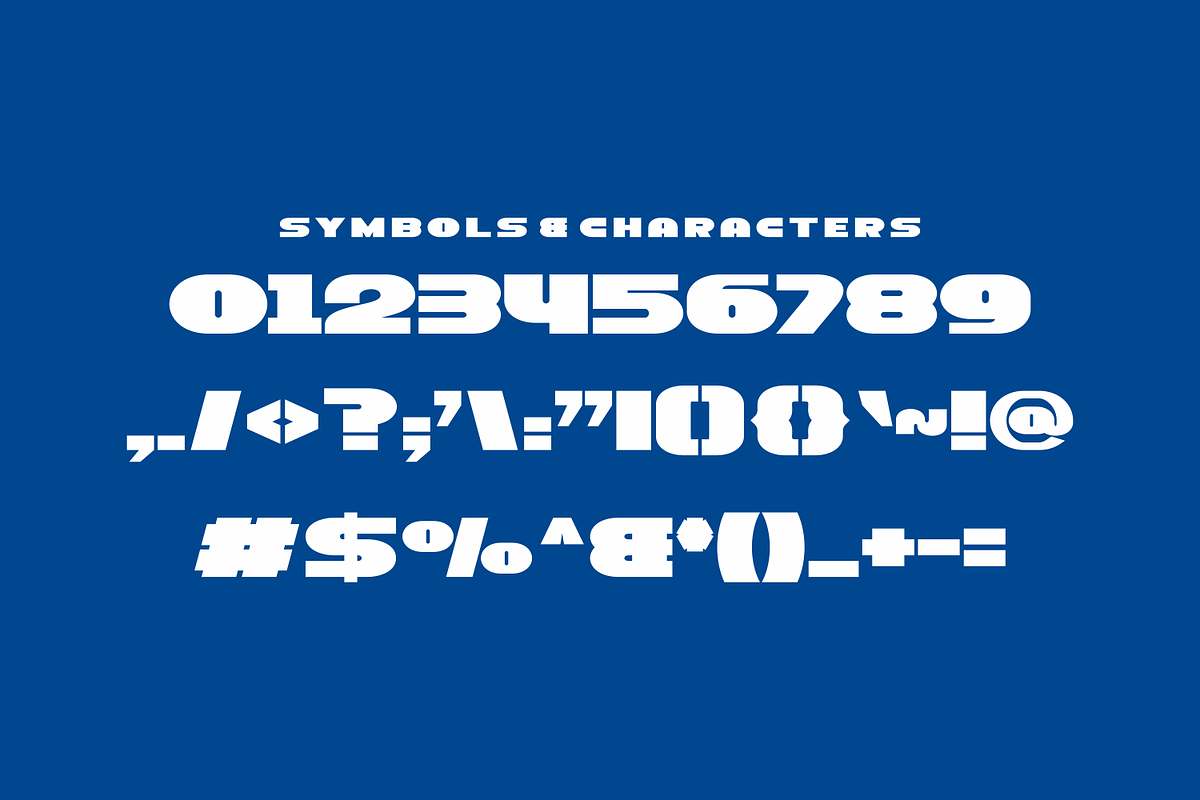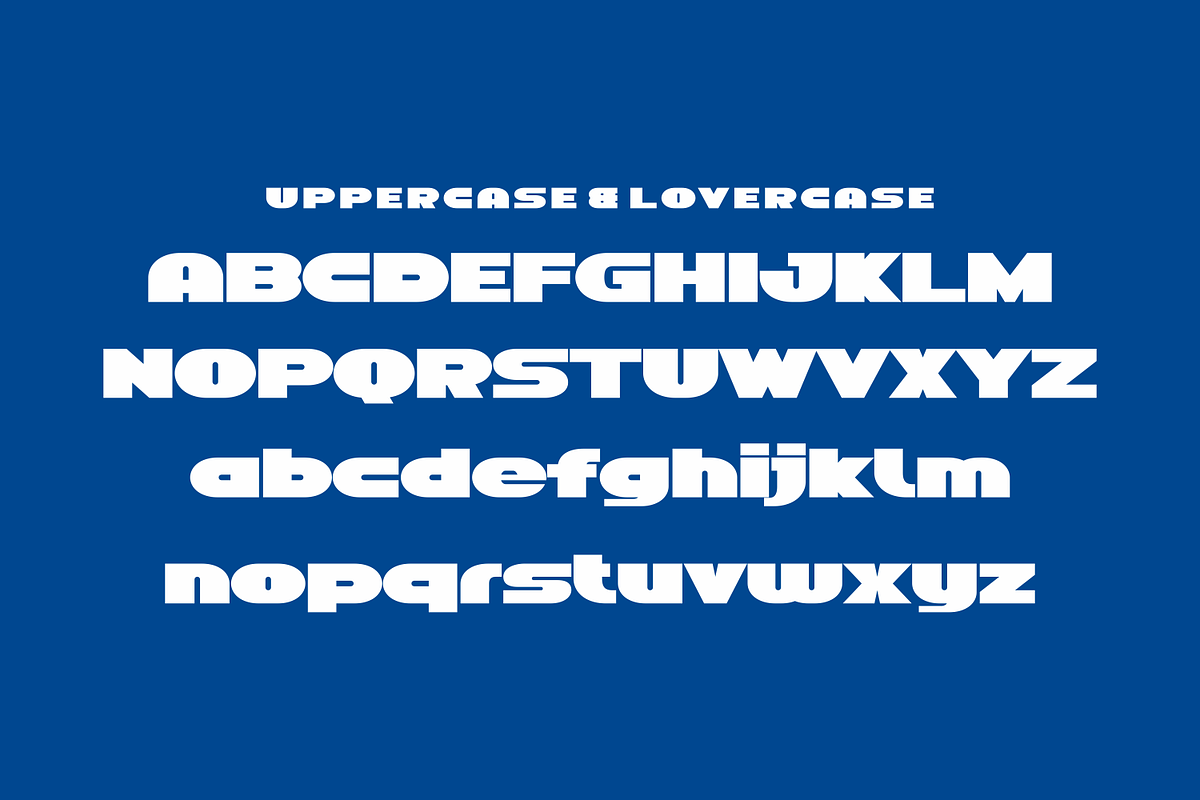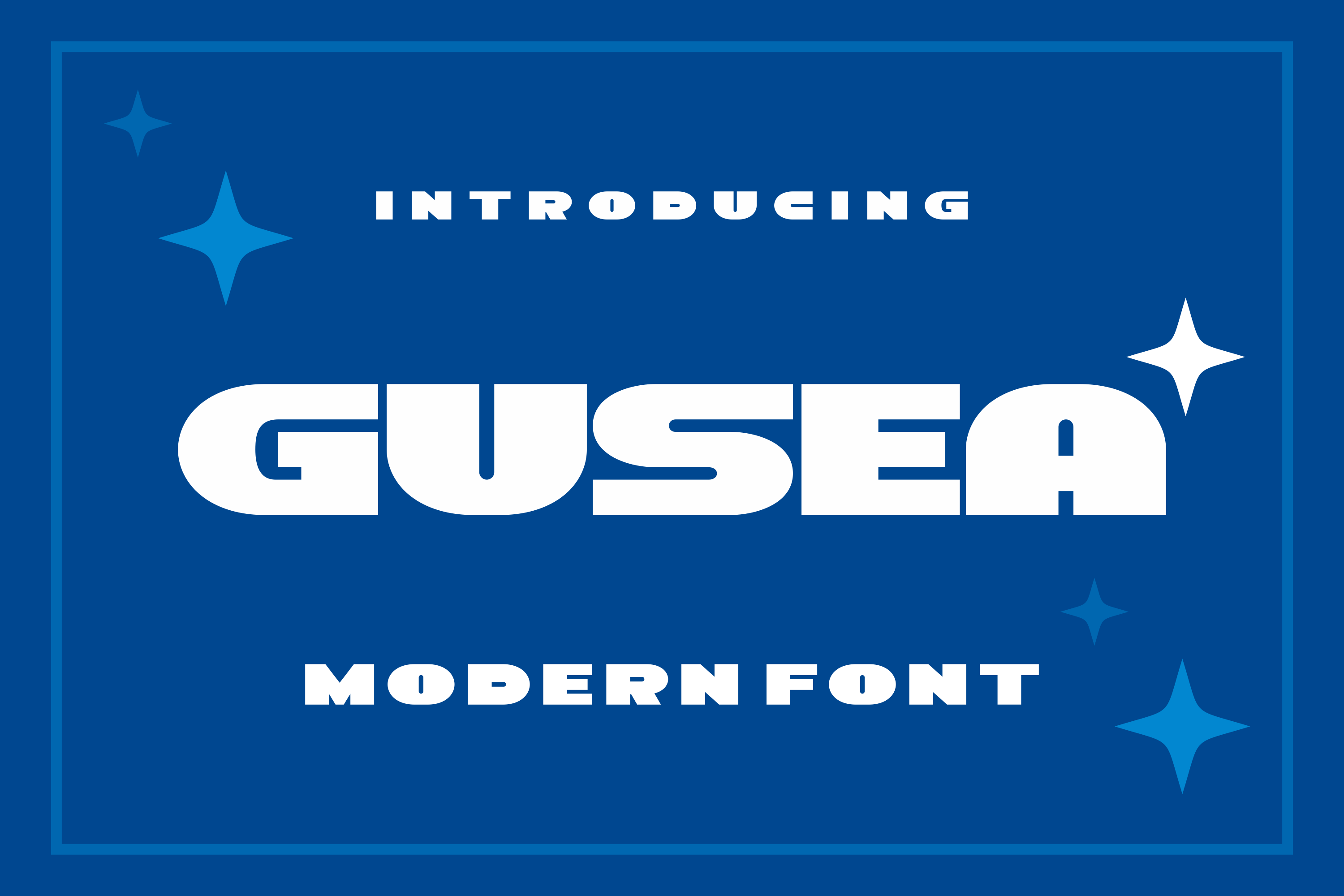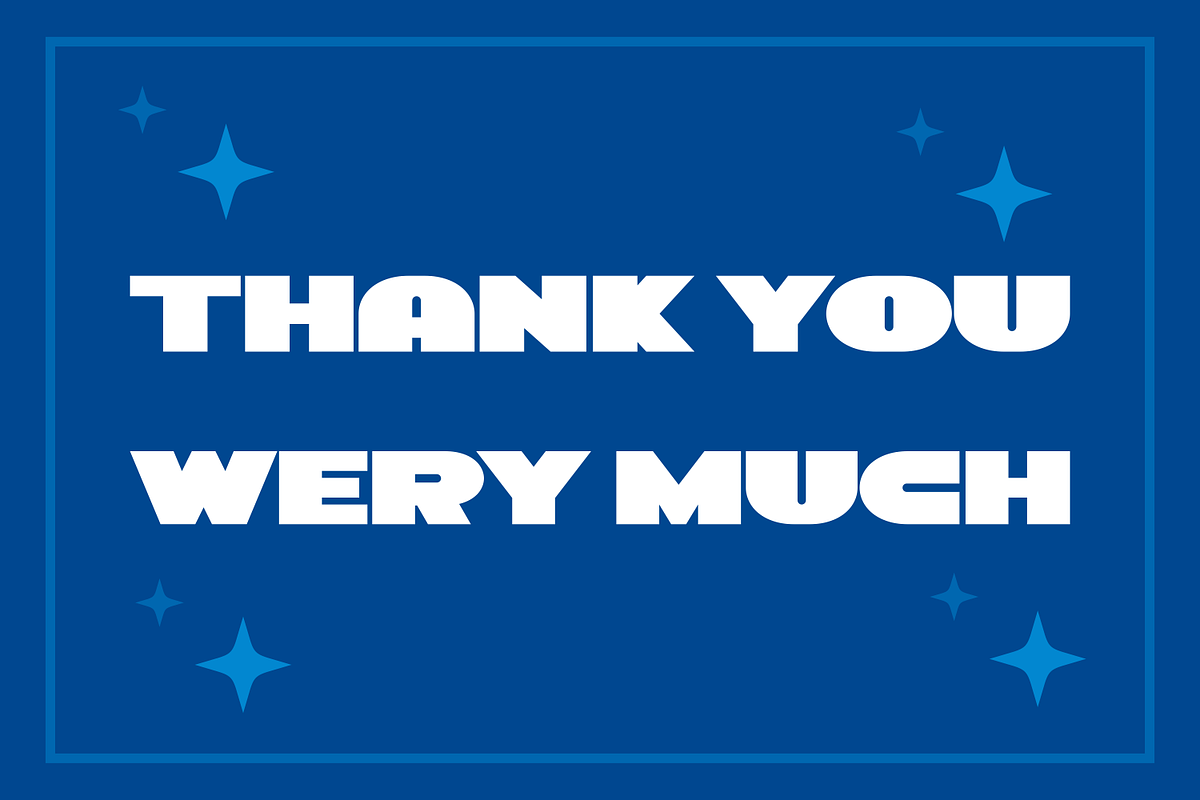
Gusea - Bold Modern Font
Gusea - Bold Modern Font Perfectly suited on print/screen. it’s perfect for Branding, name card, poster, logo, magazine, cover, banner, t-shirt and headers, or even large-scale artwork.